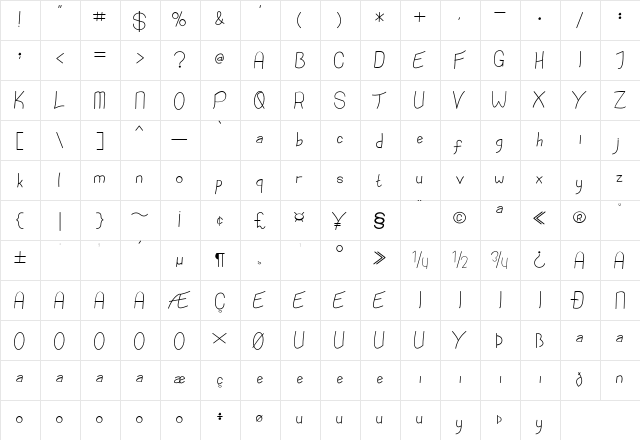
Bollolo Regular
Design Context for Bollolo Typeface
Bollolo takes a measured approach to typography — its balanced proportions and neutral character make it a reliable workhorse for both digital and print work.
Pro Tip: Use Bollolo in both headline and body roles to test its range before committing to a single application.